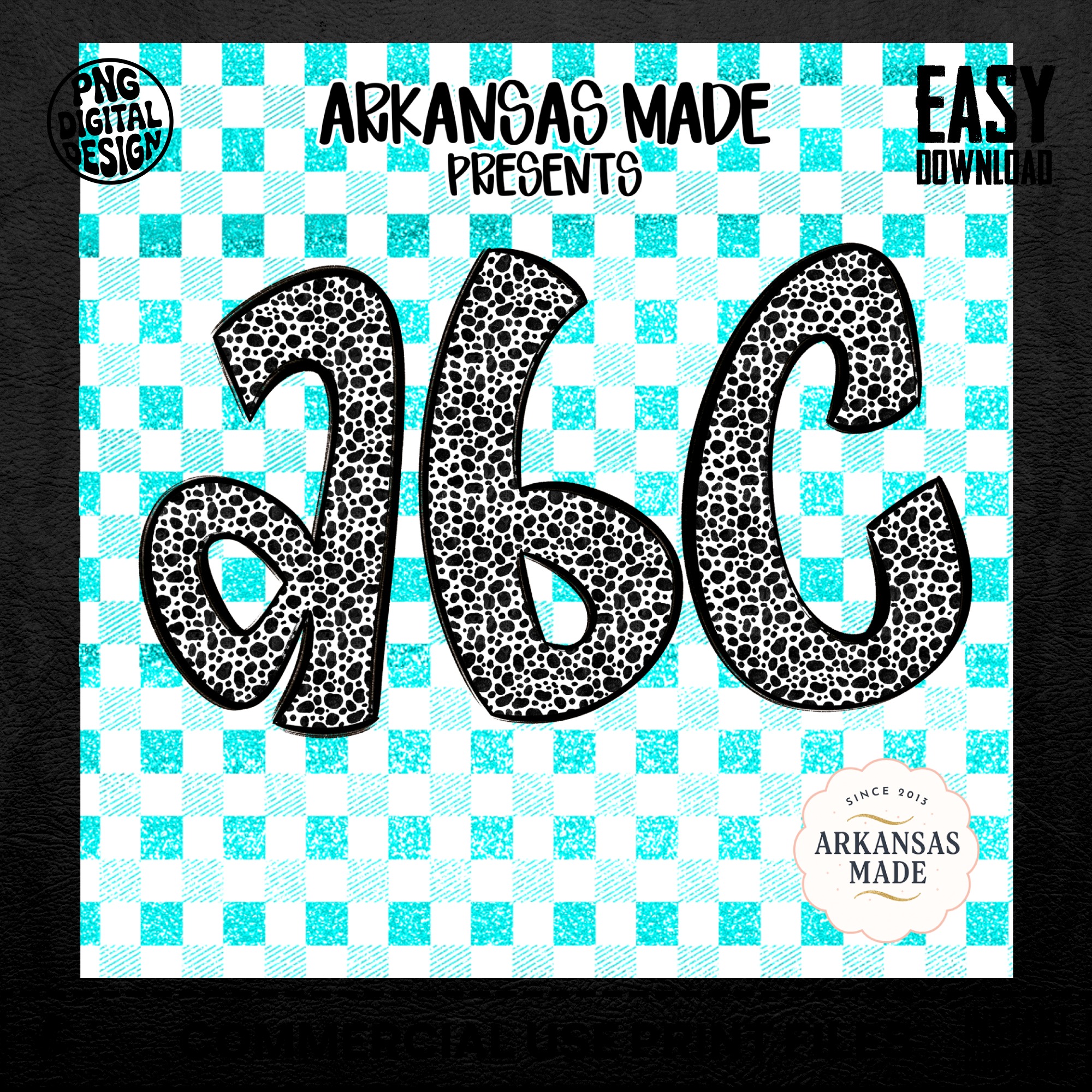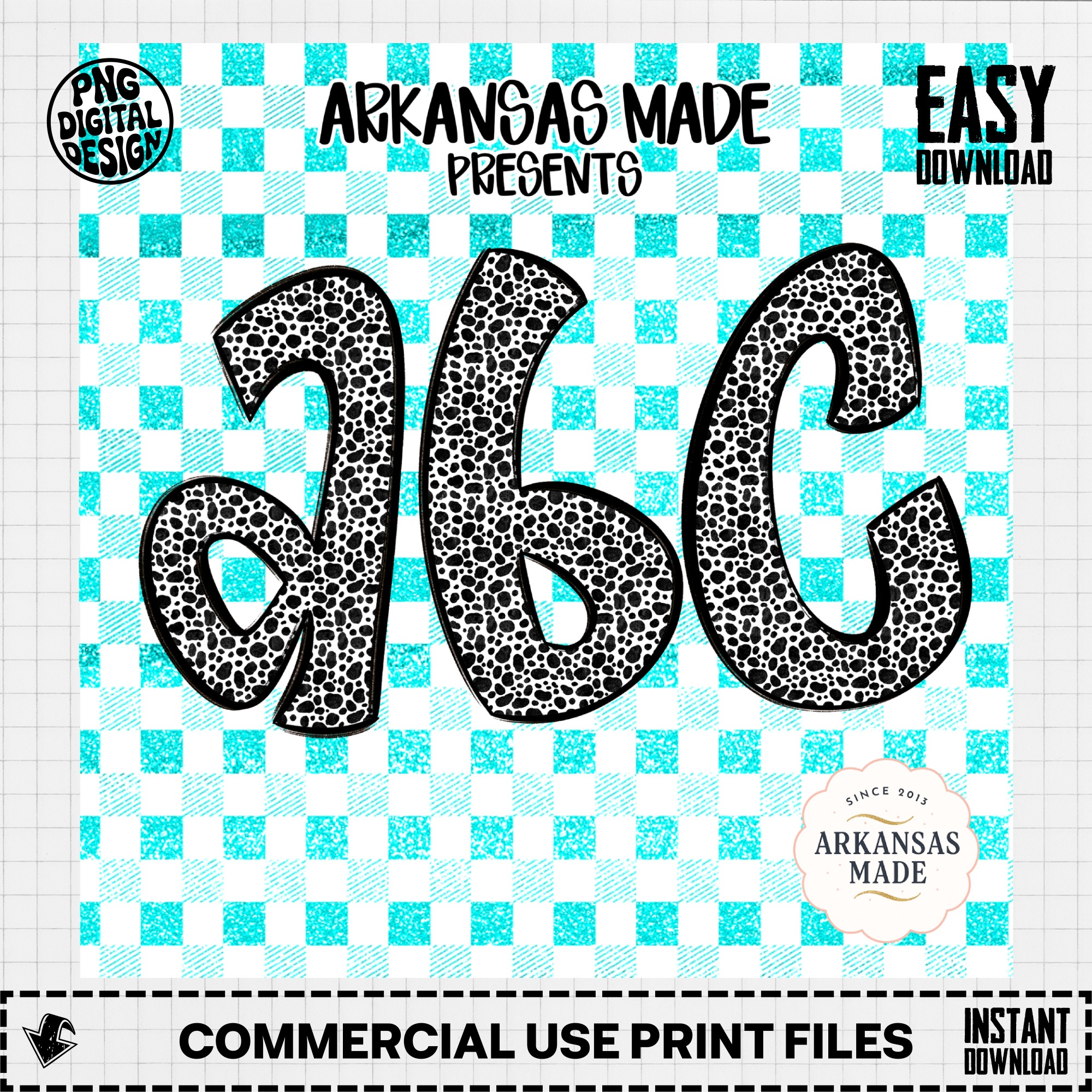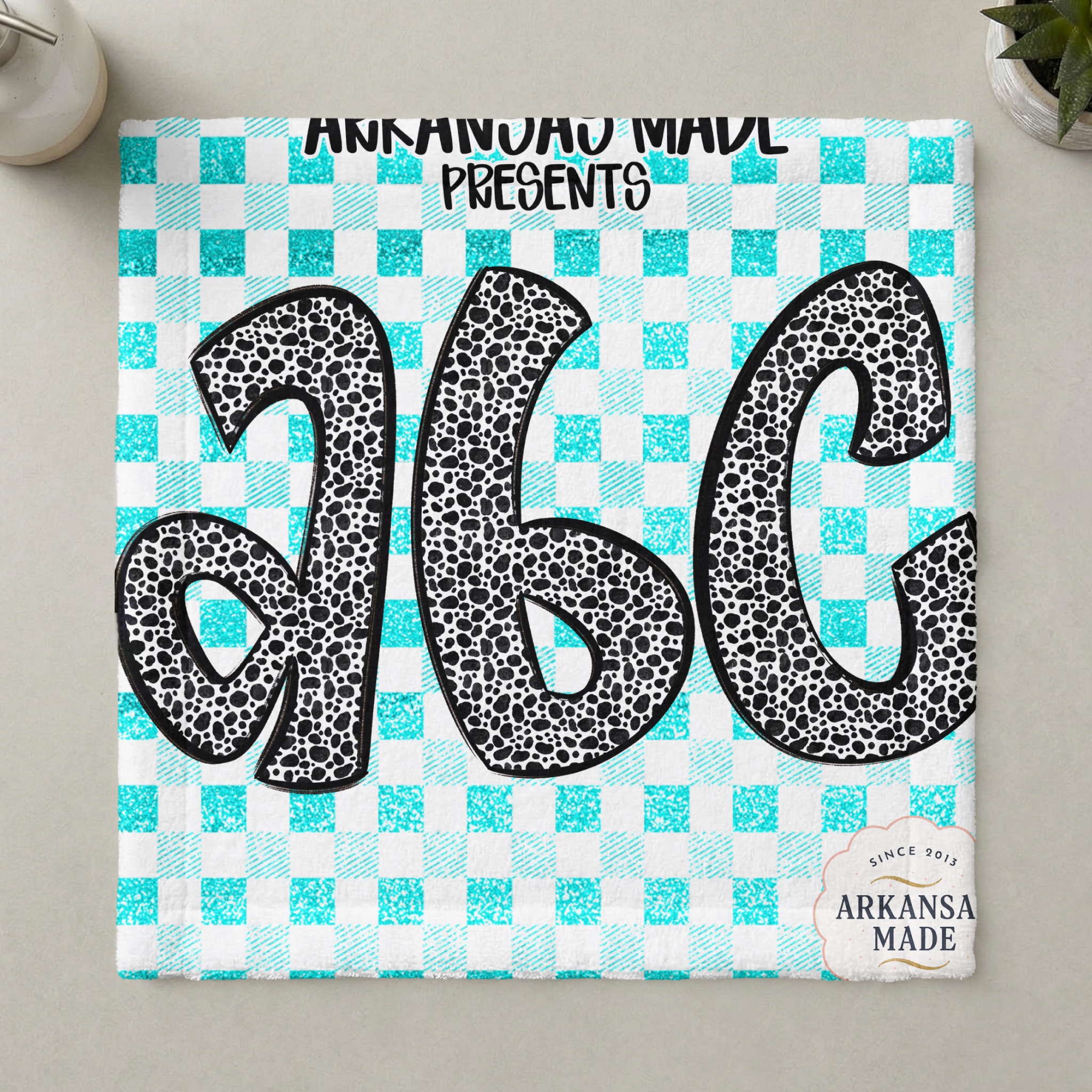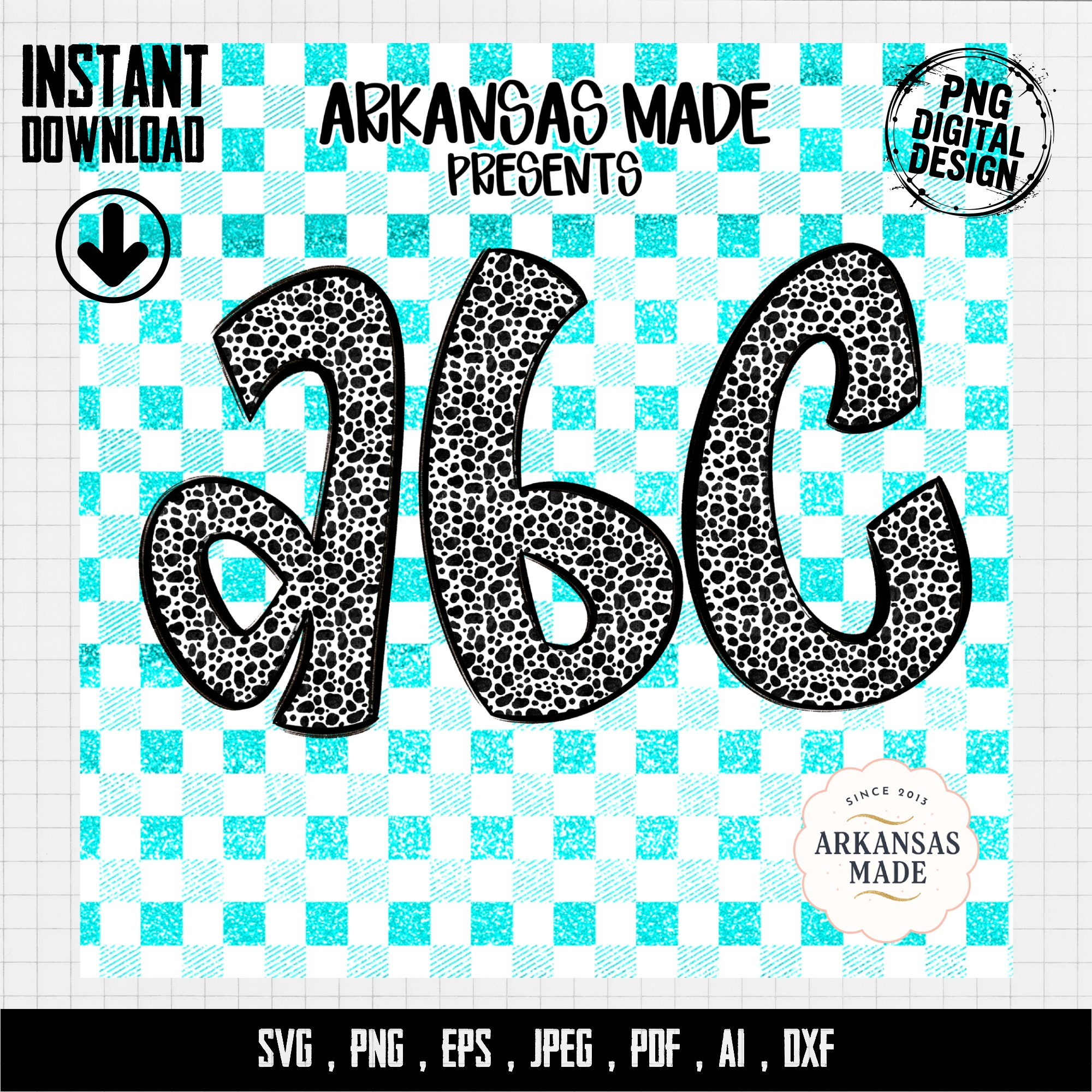
Dalmatian Alphabet Digital, Full A-Z Alpha Sublimation DTF PNGs, Spotty Letters Download, Animal Print Font, Teal Checkered ABCs
Elevate your crafting projects with this charming full A-Z alphabet digital download, featuring playful dalmatian spots and a vibrant teal checkered background. This versatile set of high-quality PNGs is perfect for adding a unique touch to a wide range of creations. Your purchase includes a comprehensive full A-Z alpha set, ensuring you have every character needed for limitless creative possibilities. Each letter boasts a fun dalmatian spot pattern, outlined in black for a distinctive look, set against an eye-catching teal and white gingham texture. Instantly access all 26 letters of the alphabet, complete with transparent backgrounds for seamless integration into your designs. Ideal for sublimation, DTF printing, and various digital design applications, these files are delivered in crisp, high-resolution quality. Create personalized apparel, custom tumblers, stylish home decor, or digital art with ease. Enhance t-shirts, mugs, signs, scrapbooking, and more with this unique, trendy collection of Digital, Digital Download Full A-Z Alpha, Sublimation DTF PNGs.